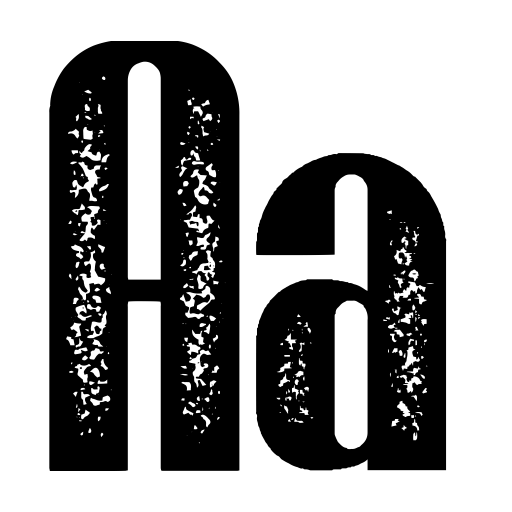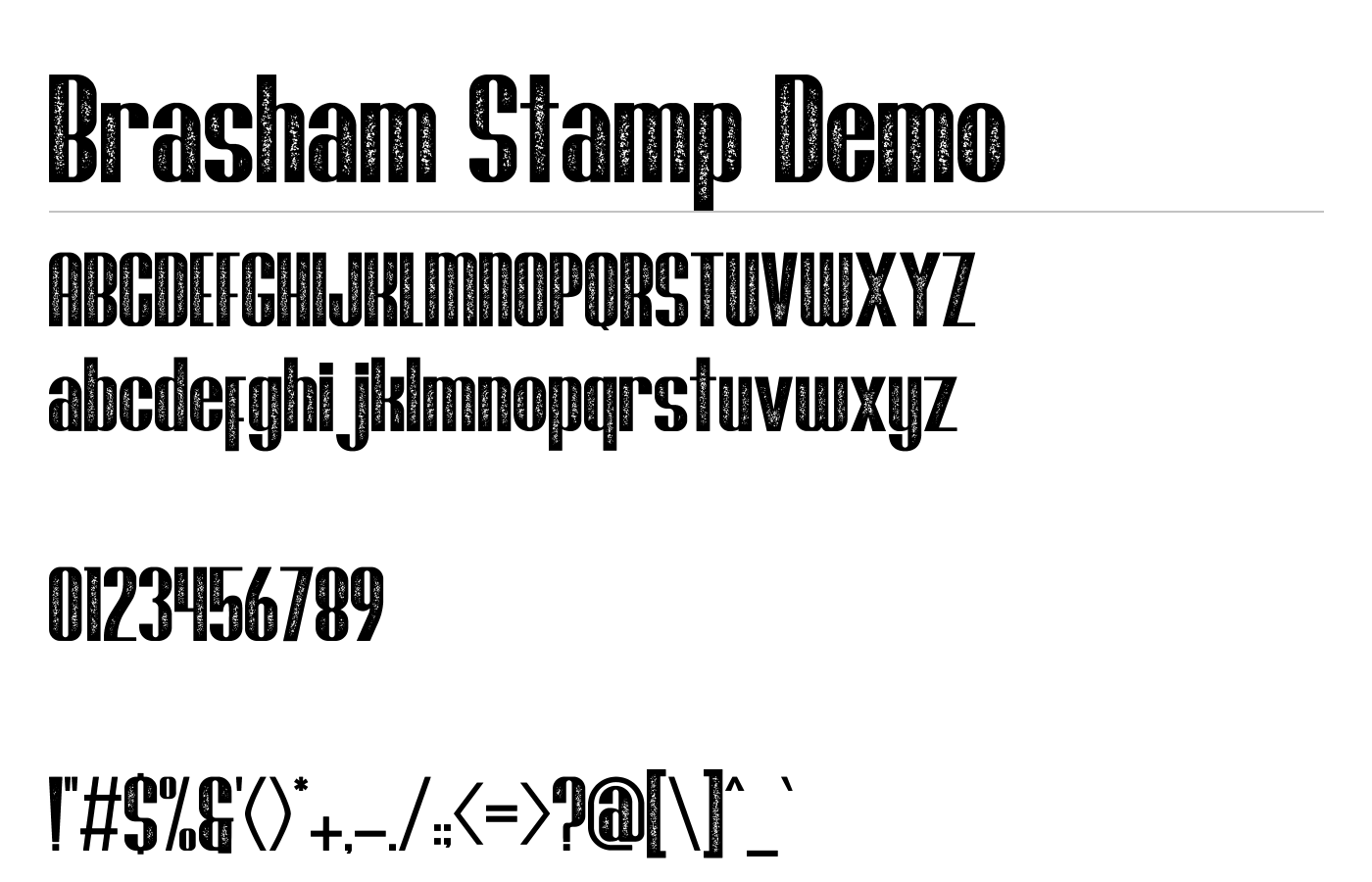
Brasham Regular is a bold, condensed sans serif font with a distressed, stamped texture that gives it a rugged and vintage feel. Its tall, narrow letterforms with sharp edges and strong vertical emphasis make it perfect for creating impactful headlines and branding that need a gritty, industrial, or retro vibe. This font works well in posters, logos, and packaging where a bold statement with character is desired.
Brasham Regular Font